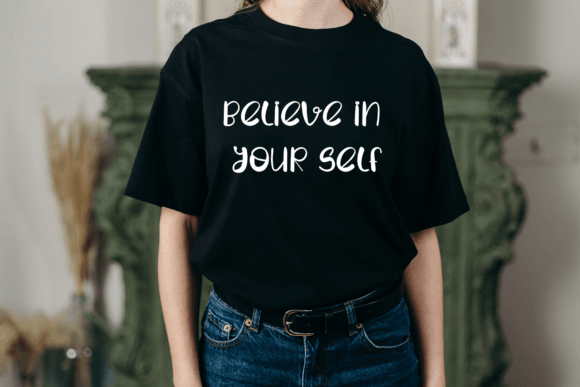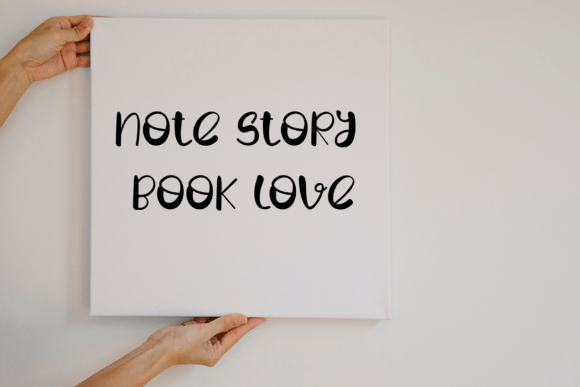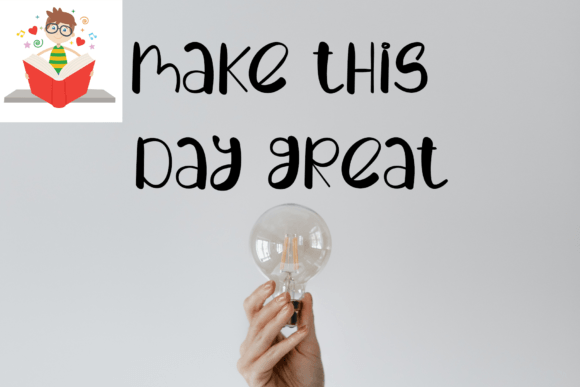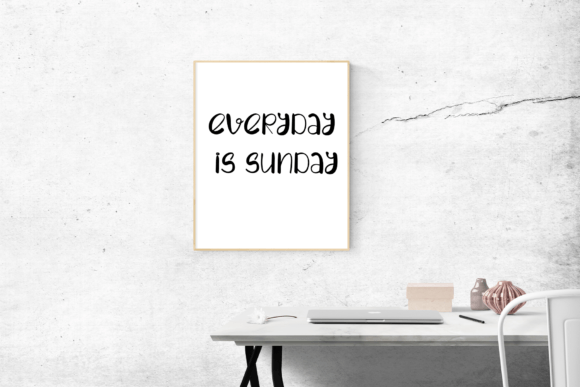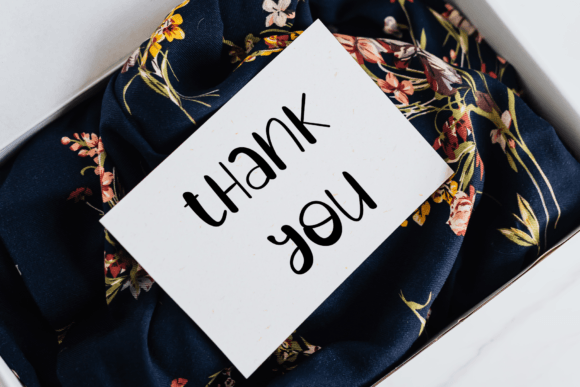
Strawberry Font
About Strawberry Font
“Strawberry” is a fresh and beautiful font crafted to enhance your design projects, whether you’re working on Youtube banners, cover logo mockups, wedding invitations, ID cards, flyers, or various crafts. This font is designed not only to bring aesthetic appeal but also to contribute to the progress and development of your business.
The simplicity and uniqueness of “Strawberry” make it a versatile choice for a wide range of design applications. Consider the impact it could have on your Youtube banners, transforming text into a visually appealing and modern representation of your content. In wedding invitations or ID cards, it adds a touch of freshness, creating a lively and engaging impression.
For businesses looking to establish a unique visual identity, “Strawberry” serves as a valuable asset. Its simplicity enhances readability, while its fresh and beautiful design contributes to a modern and memorable brand presence. Whether used in logos, mockups, or promotional materials, this font becomes a key element in creating a distinct identity.
In the realm of crafts and creative projects, “Strawberry” offers a unique and eye-catching appeal. Its simple yet beautiful form adds a touch of elegance to various applications, making it suitable for a variety of artistic endeavors.
Whether applied to digital platforms or print materials, “Strawberry” stands out as a font that not only brings freshness and beauty to your designs but also supports the progress and development of your business. Embrace the simplicity and uniqueness of “Strawberry” in your design toolkit to create visually appealing and impactful projects.